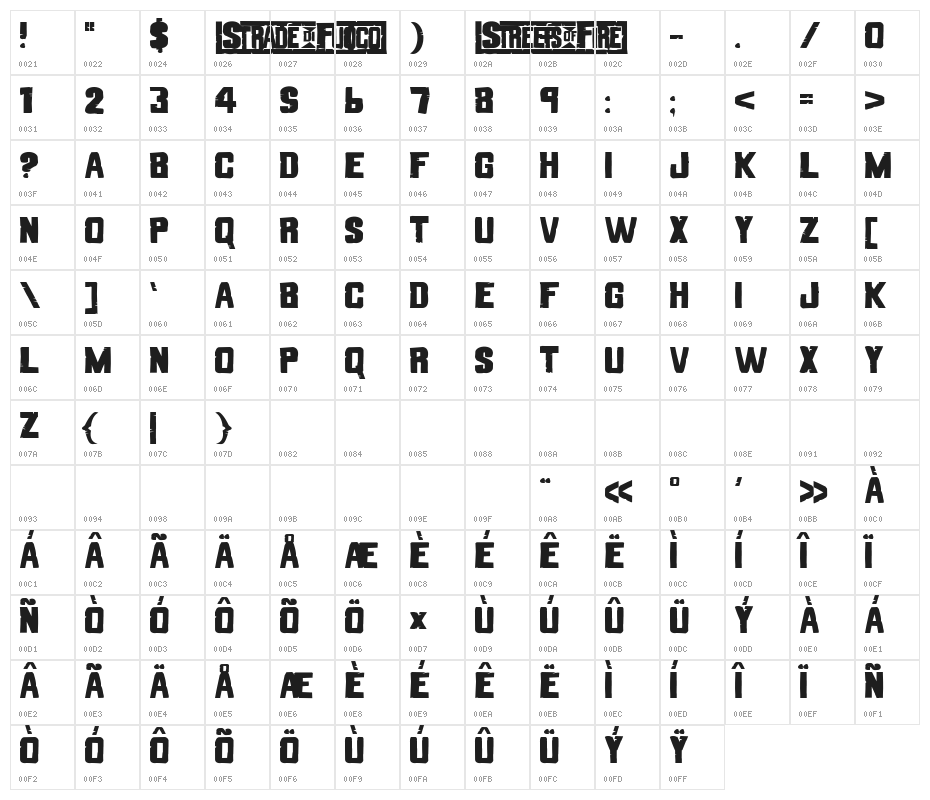
Strade di Fuoco Font
Strade di Fuoco Description
This font features a bold, distressed style with a rugged, urban feel. The characters are heavily stylized with rough edges and a worn texture, giving it a gritty, industrial appearance. The uppercase letters are prominent and impactful, while the lowercase letters maintain the same distressed aesthetic. Numbers and special characters are equally bold and textured, ensuring consistency across all glyphs. This font is designed to capture attention with its strong visual presence and is ideal for projects that require a bold statement.
| Overall Style | Urban, Industrial, Edgy |
| Proposed Projects | Ideal for posters, album covers, video game graphics, and branding that requires a strong, edgy look. |